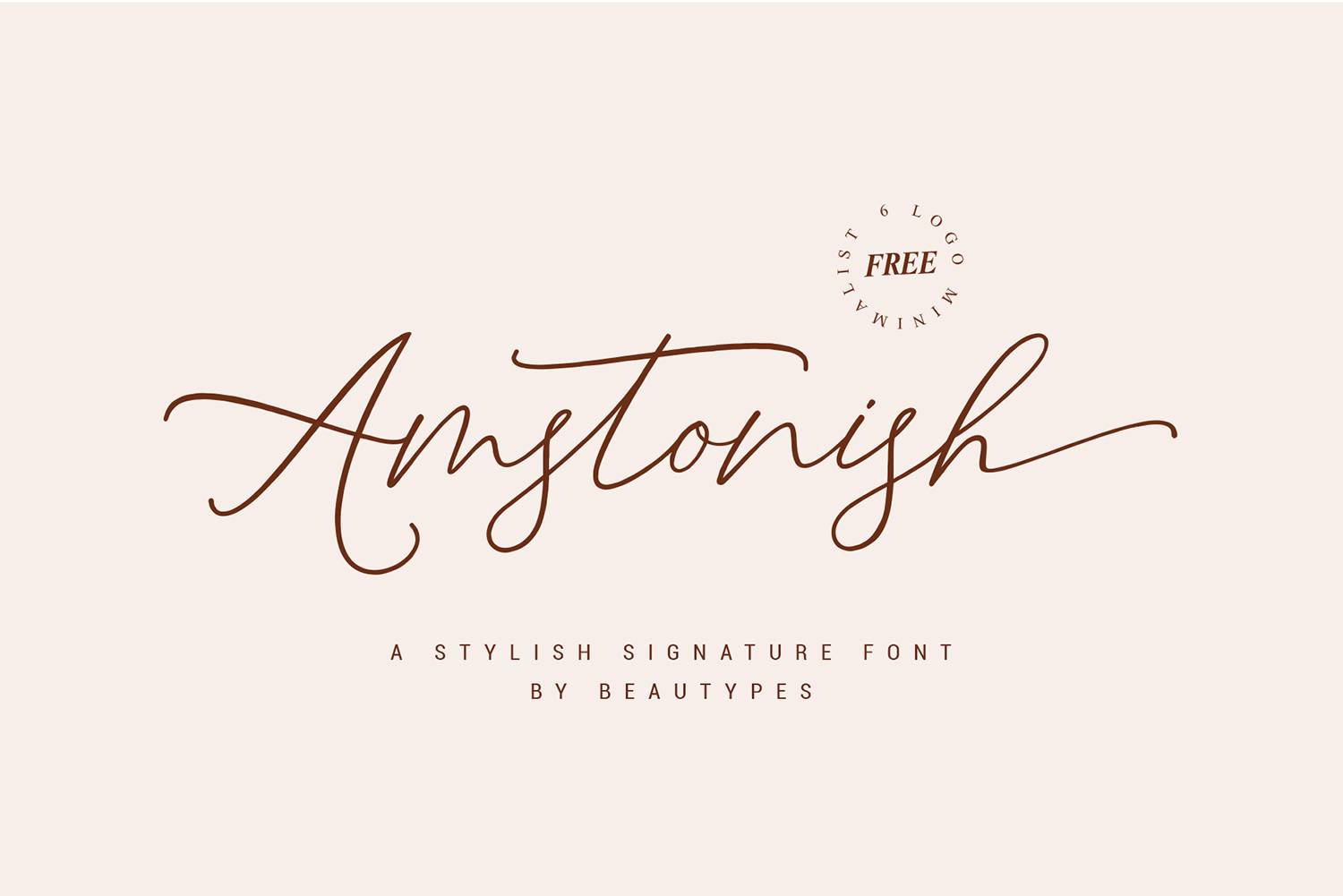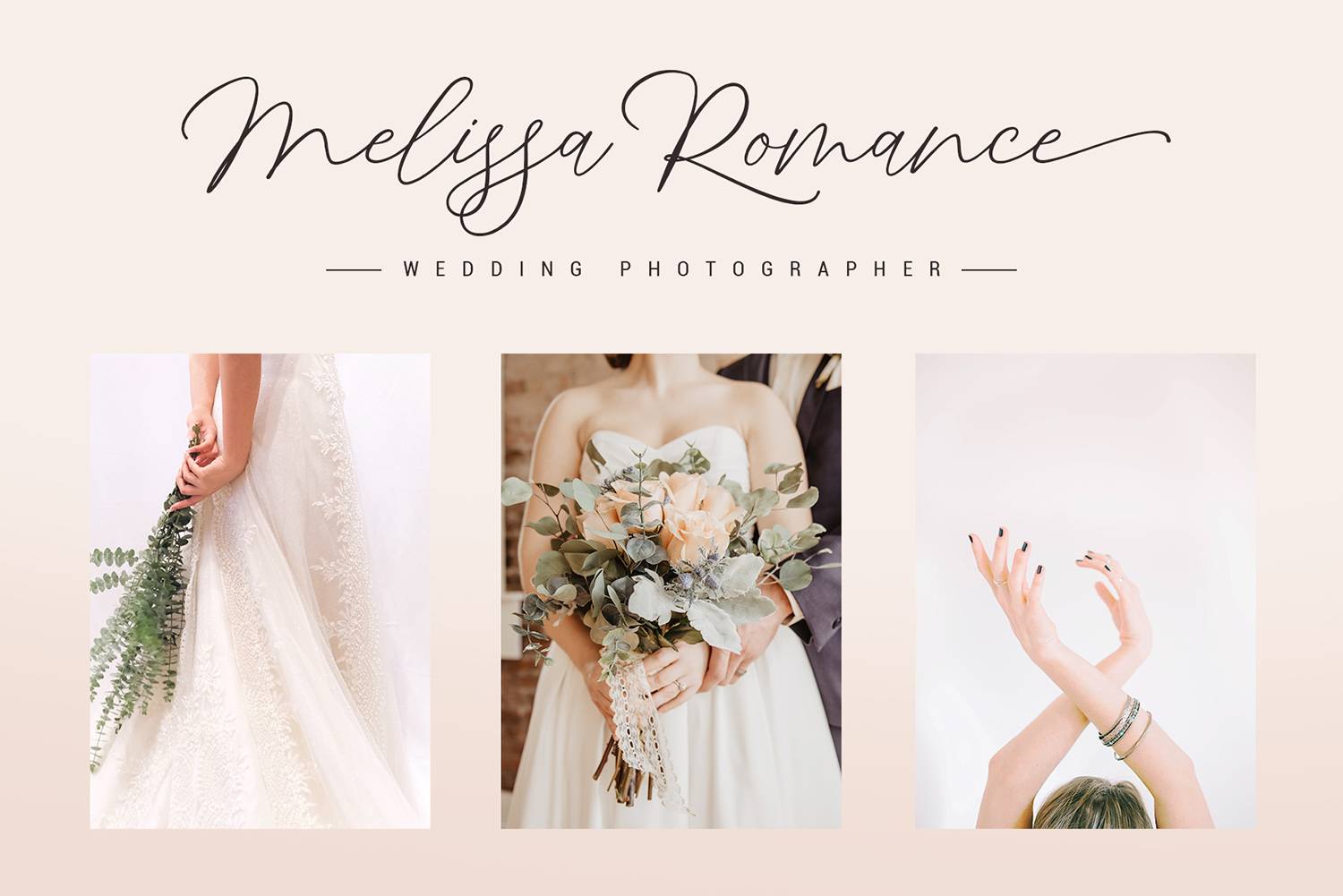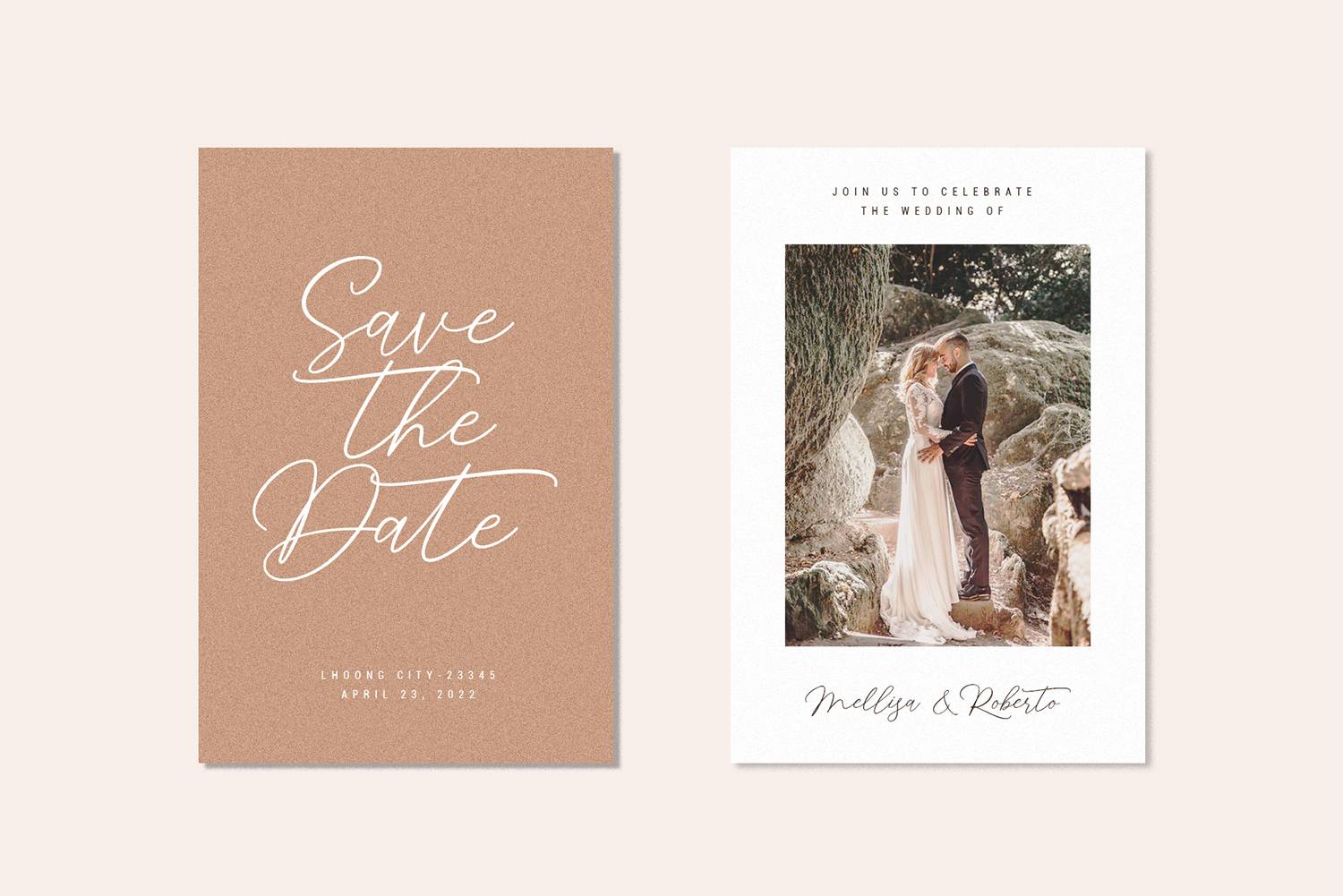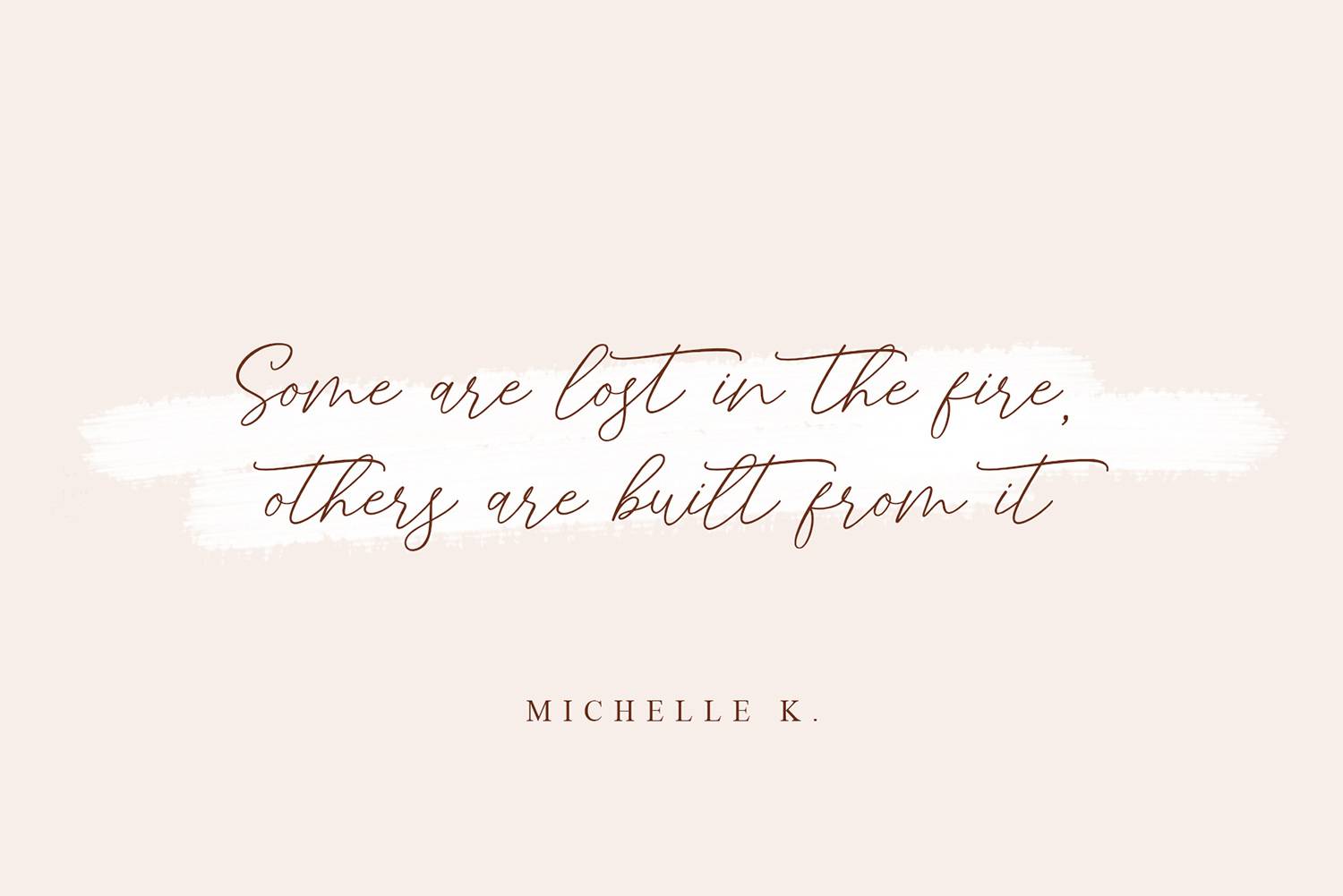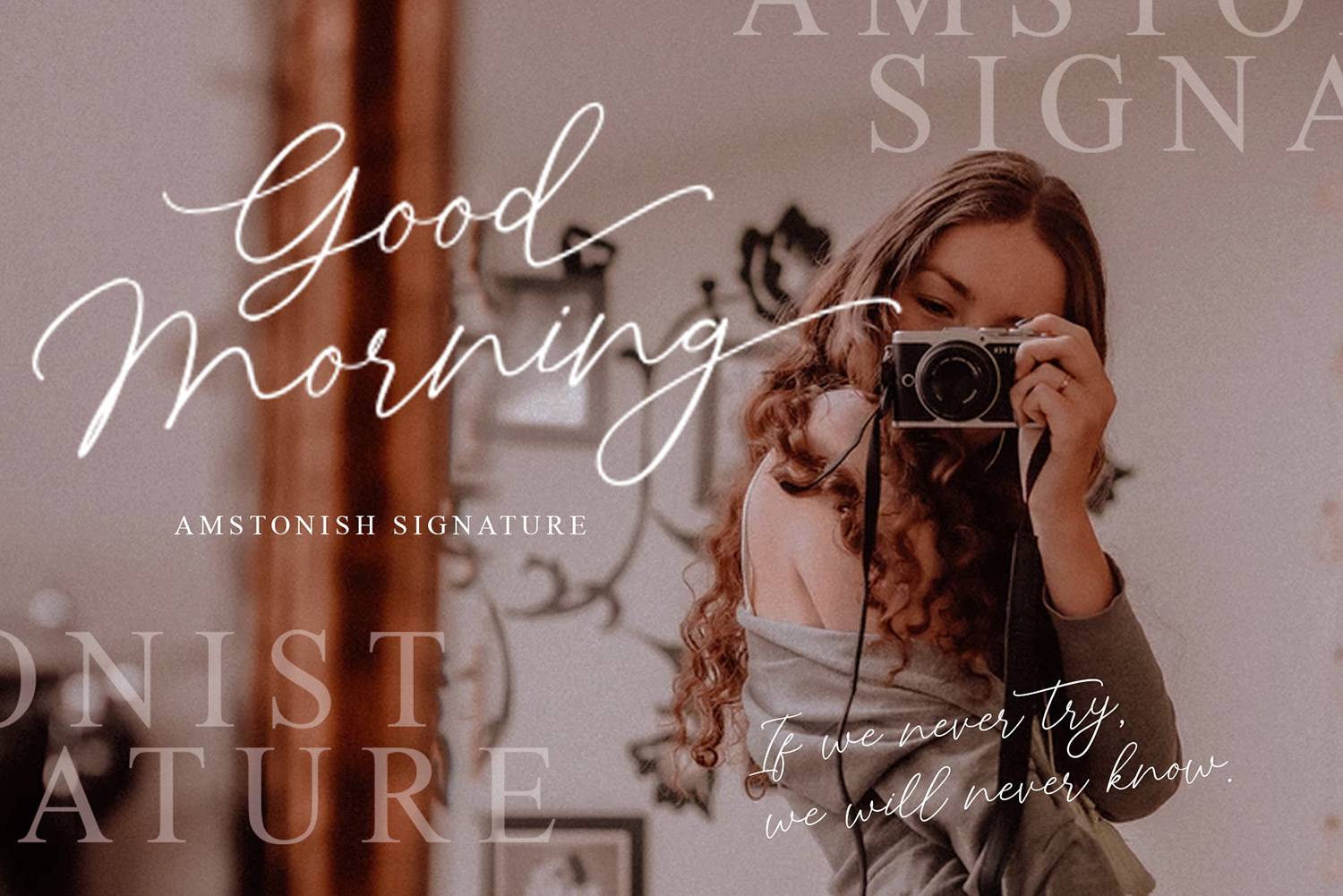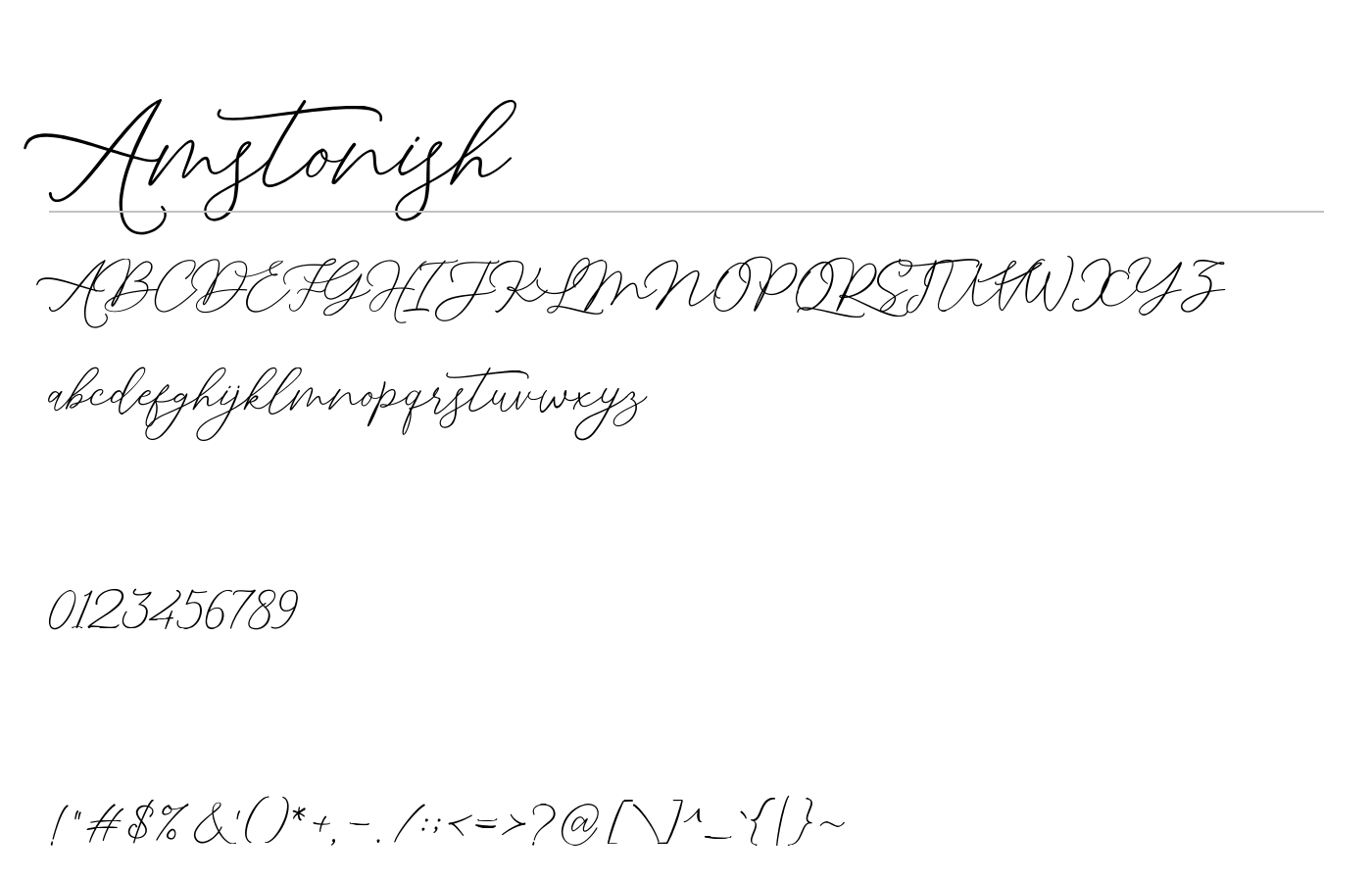
Amstonish is an elegant, delicate script font characterized by fine, flowing strokes and a graceful, handwritten feel. Its airy, light weight and smooth, connected letterforms make it perfect for upscale branding, wedding invitations, and stylish logos where a touch of sophistication and personal charm is desired. This font works beautifully in display settings, adding a refined and romantic atmosphere to any design.
Amstonish Font
About Amstonish Font